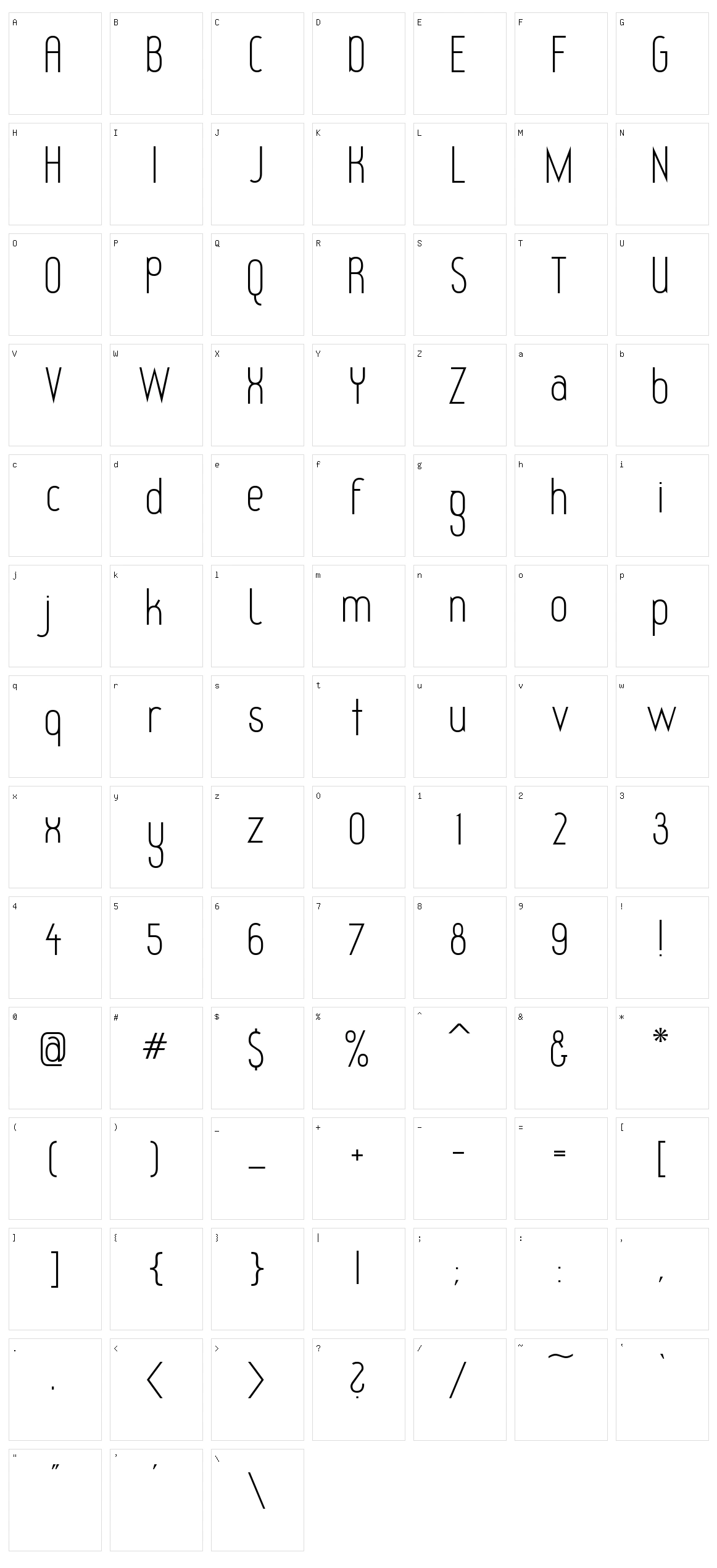
The free font Redhead Goddess is carefully designed by No Images Fonts, showcasing a thoughtful balance of creativity and usability and falls under the Sans serif font style. When you download the ZIP file, it contains only 26.92 KB of font files, making it lightweight and quick to download. Please review the license details below to understand permitted usage and distribution rights. If license information is not available, we recommend using this font for personal projects only or contacting the author directly for commercial usage permissions.